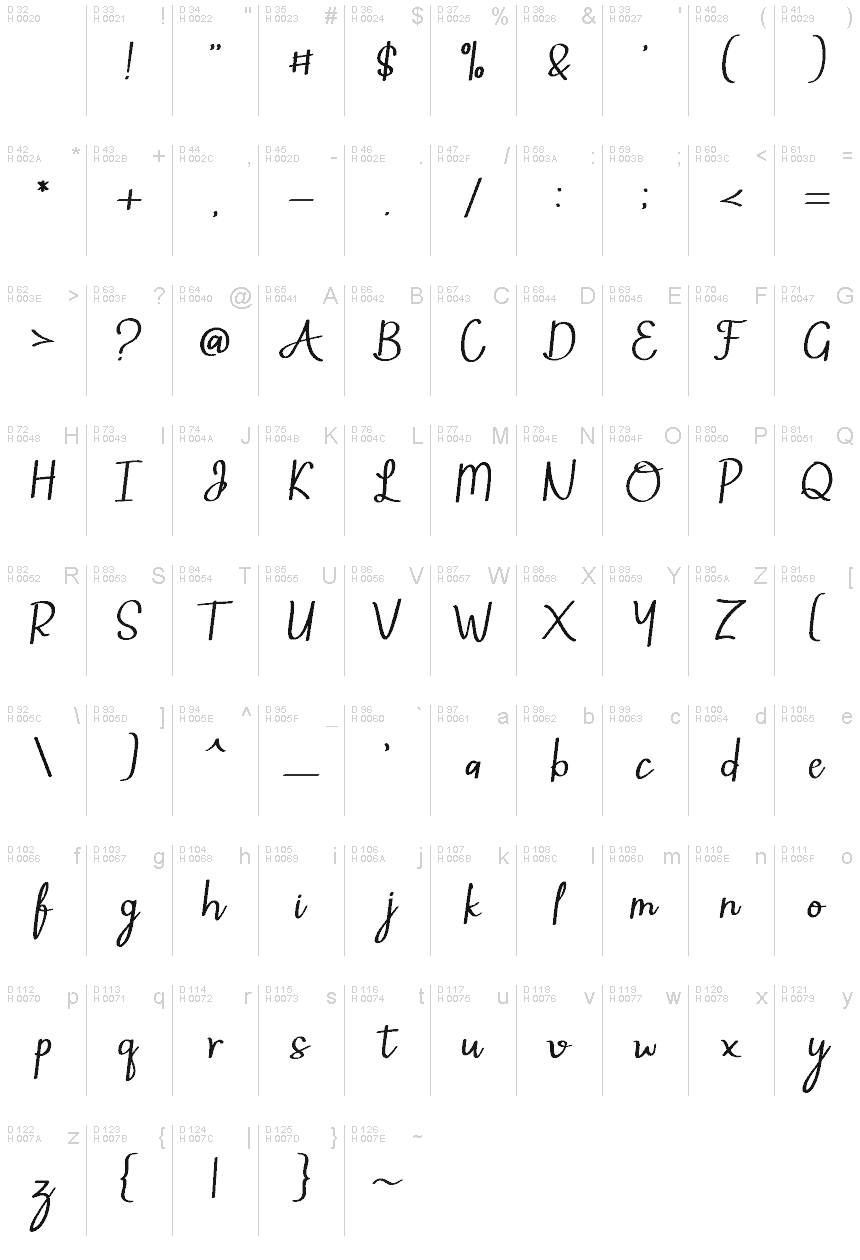
Mintlic
Mintlic is a captivating handwritten font that exudes a sense of effortless elegance. Designed by Vilogsign, this font boasts fluid, expressive strokes that convey a warm, personal touch. The gentle variations in line thickness and the organic, yet refined curves create an inviting, almost calligraphic aesthetic.
Mintlic's versatility shines through, making it an excellent choice for a wide range of design applications, from editorial layouts and branding materials to custom invitations and product packaging.
Its distinctive character adds a touch of sophistication and charm, elevating any project it graces.